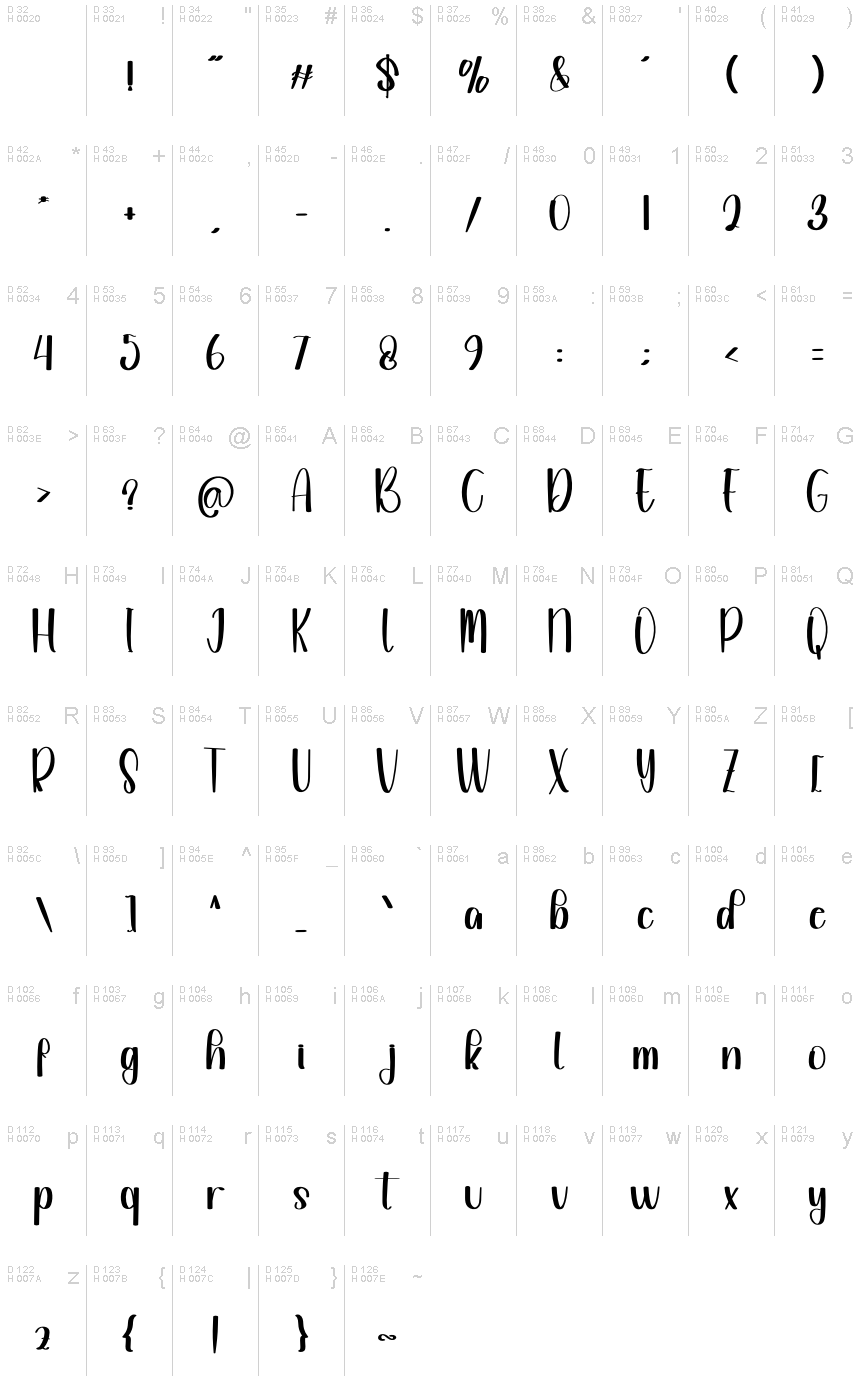
Rainbows
Rainbows, crafted by PiPi Creative, embodies a charming handwritten aesthetic with a personal touch. Its slender and flowing letters evoke the effortless grace of a quick pen stroke, giving it an organic and intimate feel. The condensed nature of this font adds to its elegance, making it stand out in applications where space is at a premium yet style is paramount.
This font's whimsical character makes it a delightful choice for invitations, greeting cards, and boutique branding. Its inviting curves suggest friendliness and warmth, perfect for any design aiming to establish a cozy and welcoming atmosphere. Whether used for expressive headlines or thoughtful messages, Rainbows brings an element of handcrafted sophistication to the canvas.